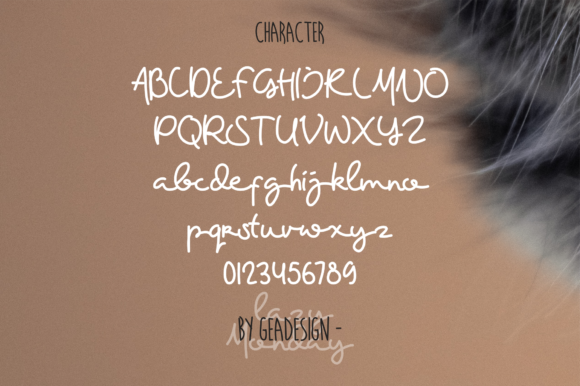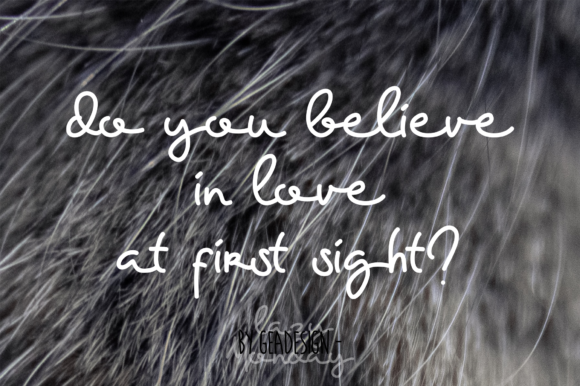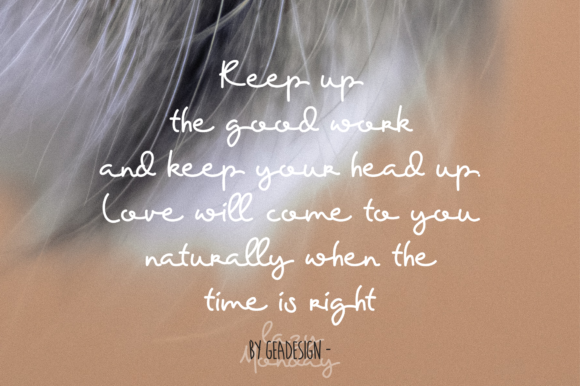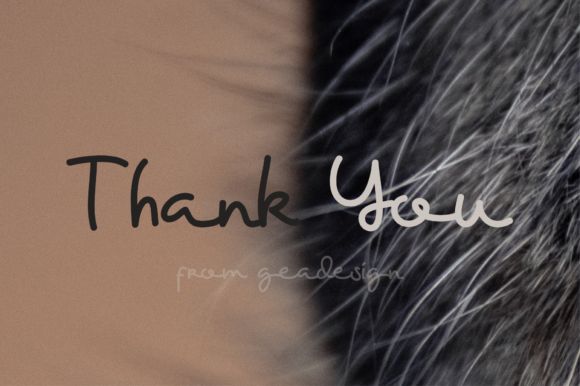
HomeScript FontsLazy Monday Font Script Fonts Lazy Monday Font FacebookXPinterestWhatsApp Lazy Monday Font Poster 2 Lazy Monday Font Poster 3 Lazy Monday Font Poster 4 Lazy Monday Font Poster 5 About Lazy Monday Font Lazy Monday is a playful handwritten font with script touch. Fall for its unique and look cool! DOWNLOAD ON CREATIVE FABRICAThis font is sold and delivered by Creative Fabrica. Font Canyon may earn a commission if you buy through this link. People also explored Dalmatian Font Wolesbro Font Welling Font Angel Paradise Font Katelyne Font Sallirra Font Staychil Font Openla Dolfind Houses Font 389 0 TagsLazy Monday Font Previous articleLove Story FontNext articleBorn to Be Loved Font LEAVE A REPLY Cancel reply Comment: Please enter your comment! Name:* Please enter your name here Email:* You have entered an incorrect email address! Please enter your email address here Website: Save my name, email, and website in this browser for the next time I comment. Personal Use Free Mama Personal Use Free Read more about this font Hysteria Santa Personal Use Free Read more about this font Glosery Personal Use Free Read more about this font Clumed Personal Use Free Read more about this font BLOG Exploring Font Trends Shaping Communication in the Digital Era Fonts, like all design elements, are subject to trends. They play a crucial role in communicating a brand's personality,... Modern Sans-Serif Fonts That Brands Love in 2025 Using Fonts in Digital Marketing: Tips to Strengthen Your Brand Identity Free Fonts Risk: Why Free Fonts Can Be Dangerous for Designers